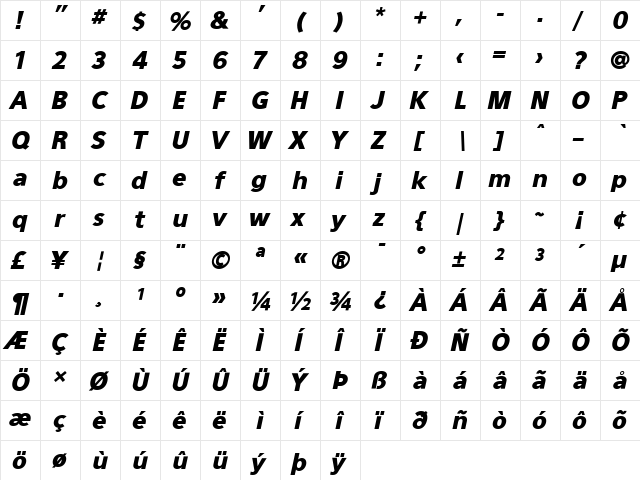
Eau Sans Black Oblique
| Foundry | YOFonts |
| Designer | Yamaoka Yasuhiro |
Design Context for Eau Typeface
Eau offers clean, dependable letterforms without strong stylistic allegiance, making it a practical choice for designers who need flexibility. The dynamic lean of this cut emphasises speed and emphasis in any layout.
Pro Tip: Try Eau for annotation and caption copy alongside an upright companion — the contrast in angle creates a dynamic but ordered typographic system.